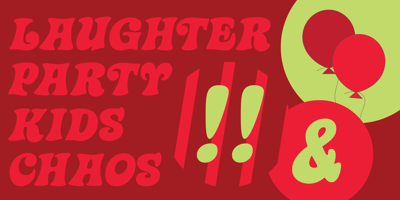
Steiner Special Font Family was designed by Peter Steiner, Rebecca Alaccari and published by Canada Type. Steiner Special contains 1 styles and family package options. Steiner Special is a revival and expansion of an art nouveau face called Swing, originally designed by Peter Steiner in 1974. Some of the original film type letters were slightly normalized and toned down for concept consistency, though this digital version lacks none of the original face’s charm and sunny disposition. This particular kind of art nouveau face is one that appeals very much to kids. Steiner Special can be used in upper-lower or all-upper, and can maintain its enthusiasm and excitement through any bending, stretching, squeezing, warping or any thinkable filter your favourite design program has. Children book covers, candy and cereal packaging, fun headlines and posters for kid events are but few of the possible uses of this font. If you’re designing anything for kids, give this font a try and you won’t regret it. Steiner Special comes with over 500 glyphs and support for the majority of Latin languages. A full set of ligatures in included, as are a few stylistic alternates.